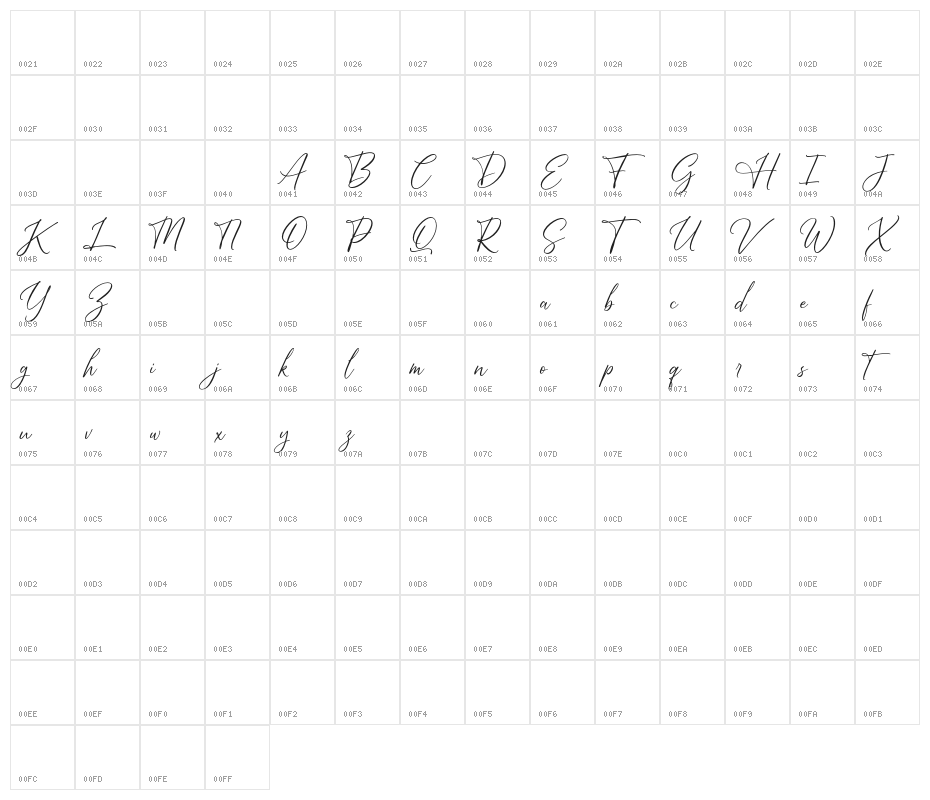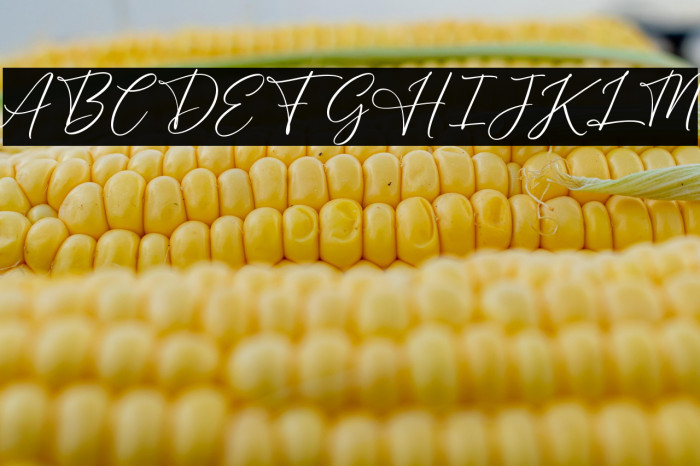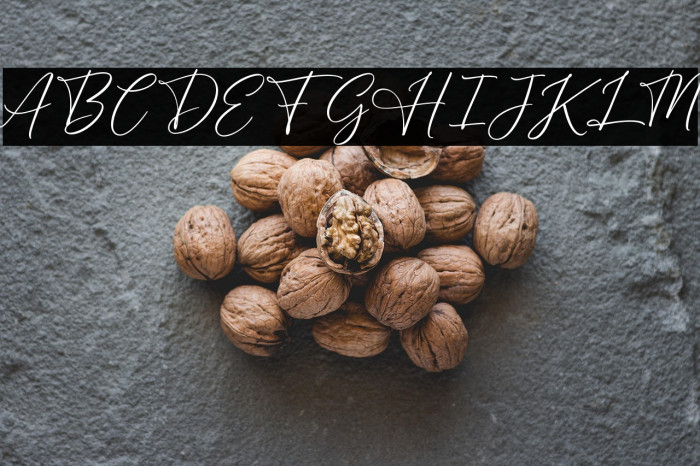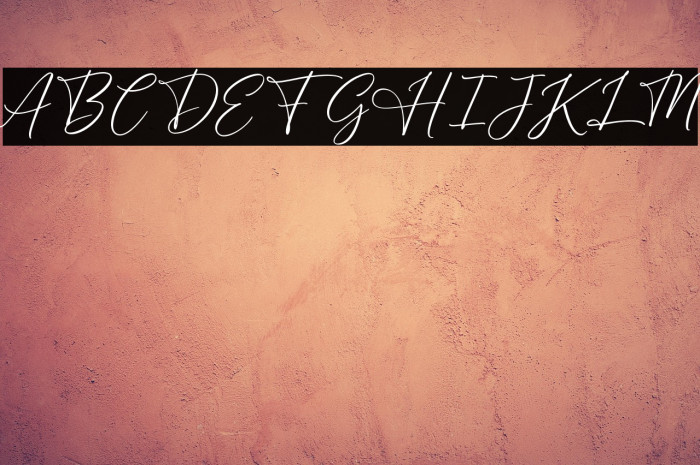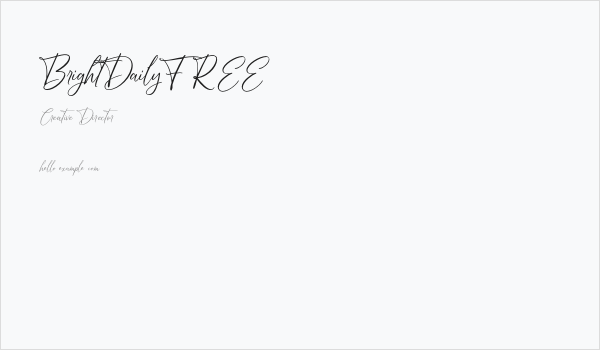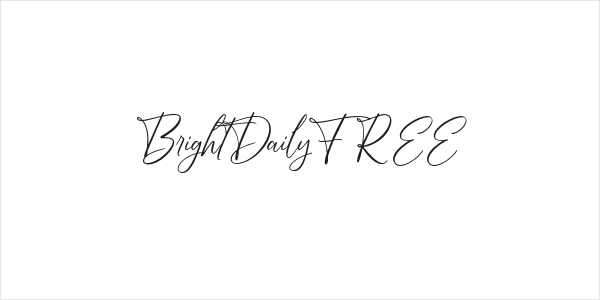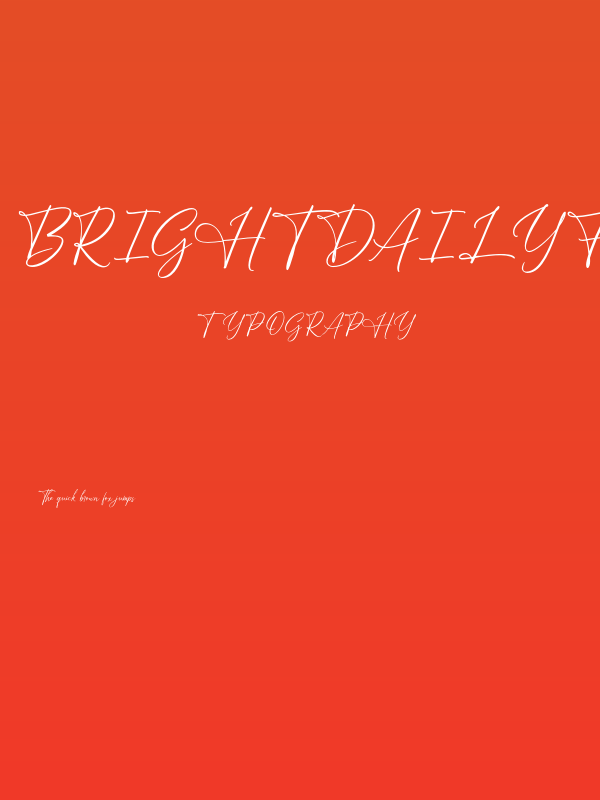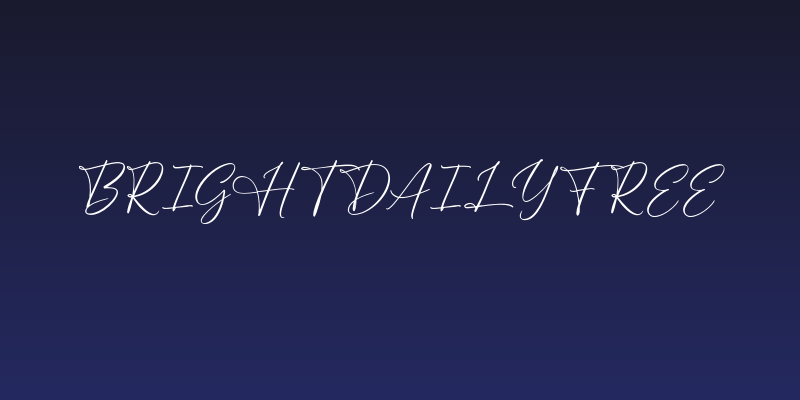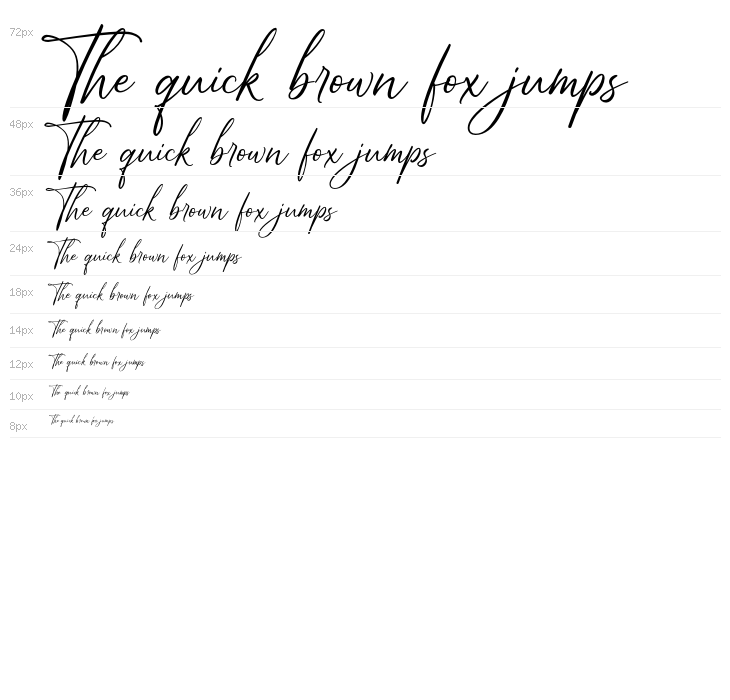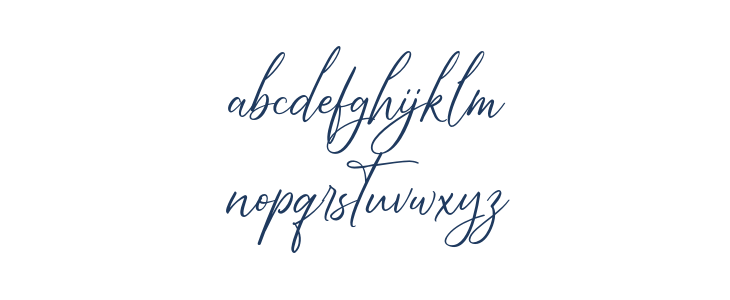
BrightDailyFREE Font
BrightDailyFREE Description
This elegant script font features a flowing, cursive style with smooth, continuous strokes that create a sense of fluidity and grace. The uppercase letters are tall and slightly slanted, with delicate loops and swirls that add a touch of sophistication. The lowercase letters maintain a consistent rhythm, with some characters extending below the baseline, enhancing the font's dynamic appearance. The overall design is both classic and modern, making it versatile for various applications. The font's thin lines and high contrast between thick and thin strokes give it a refined and polished look, suitable for formal and decorative purposes.
| Proposed Projects | Ideal for wedding invitations, elegant branding, greeting cards, and upscale packaging. |